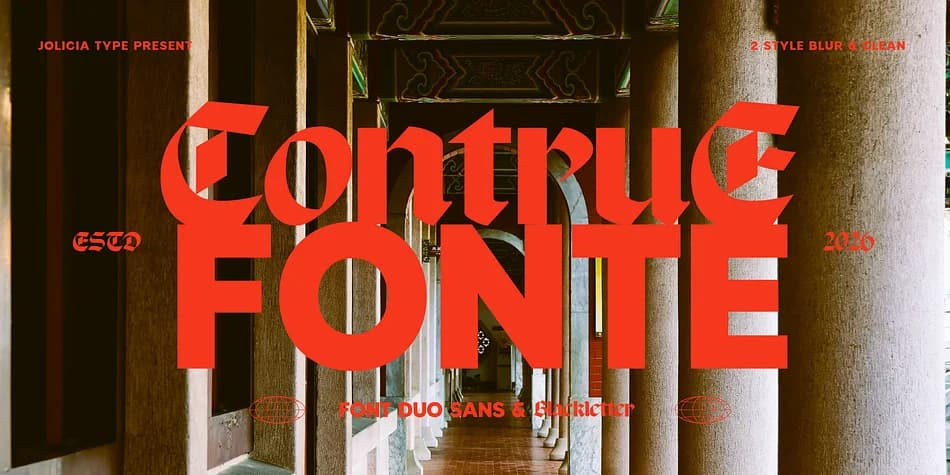
Contrue Fonte by Jolicia Type is a bold typeface duo that threads medieval tradition with contemporary design. The pairing of a clean, geometric sans serif alongside an ornate blackletter creates genuine visual tension. Rather than choosing between minimalist clarity and decorative richness, you get both within a single, cohesive system that feels intentional rather than haphazard.
This duality proves especially valuable for headline work where contrast drives the message home. Dark academia book covers, festival posters with a gothic edge, high-end spirits branding, and vintage apothecary labels all shine with the range this font delivers. The blur style variant opens another creative possibility, introducing motion and softness that transforms experimental layouts or moody editorial spreads into something far more dimensional than conventional typography alone.
Getting the balance right between legible sans and expressive blackletter presents a genuine design challenge. Jolicia Type solved it by ensuring both weights sit comfortably together in the same layout without competing for attention. The sans serif grounds the design while the blackletter adds weight and character. When you want headlines that command presence without sacrificing sophistication, this font system delivers what you need. Grab Contrue Fonte on Creative Fabrica to explore how the pairing works for your next project.
Contrue Fonte Font is a blackletter font that shines as a display or heading face. Pair it with a clean serif or sans-serif font for body text β the contrast creates a clear hierarchy while the two styles stay balanced and easy to read.